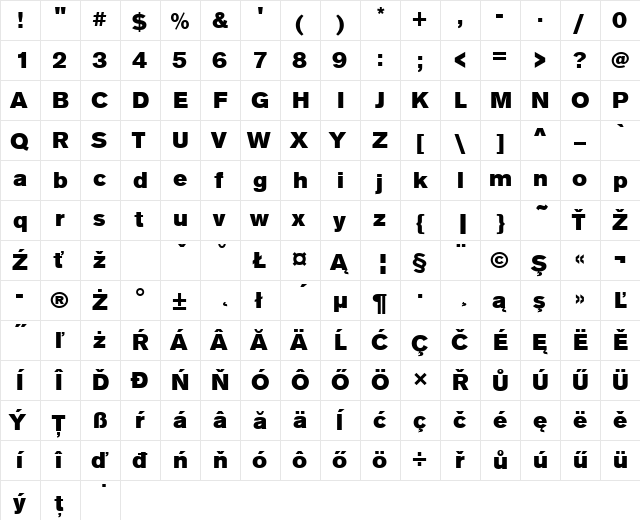
AcciusTEEUlt Regular Font Preview
AcciusTEEUlt Regular
Design Context for AcciusTEEUlt Typeface
AcciusTEEUlt is a composed and adaptable typeface that performs quietly and consistently across a wide range of design contexts.